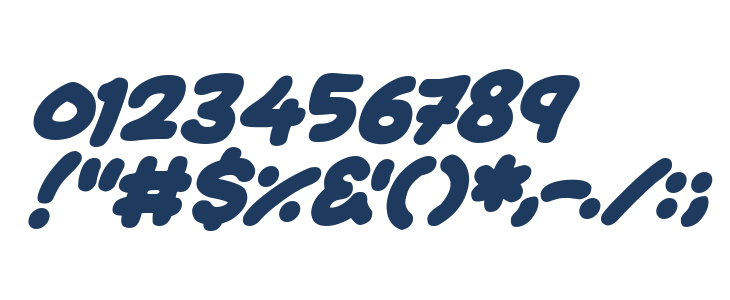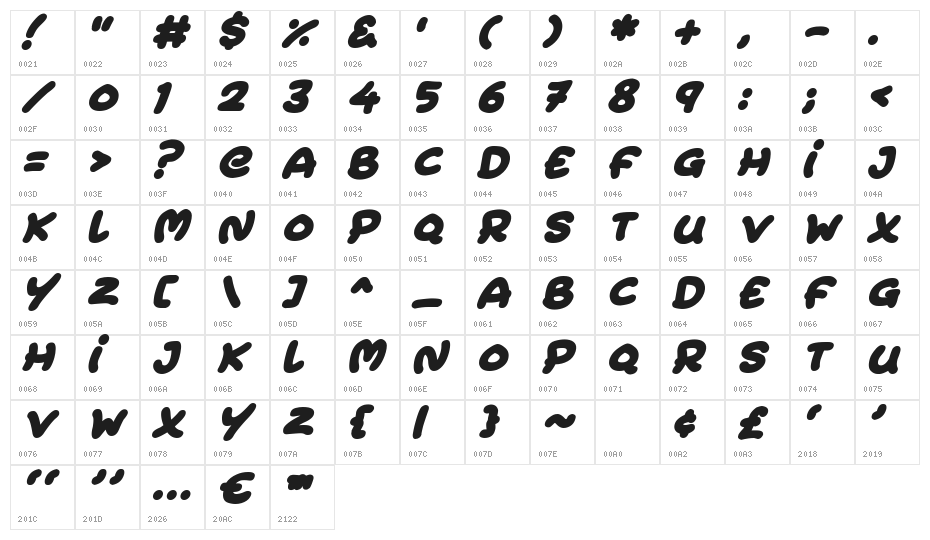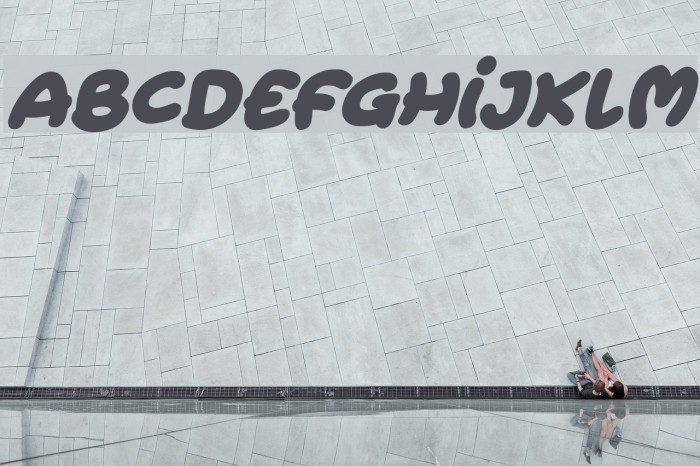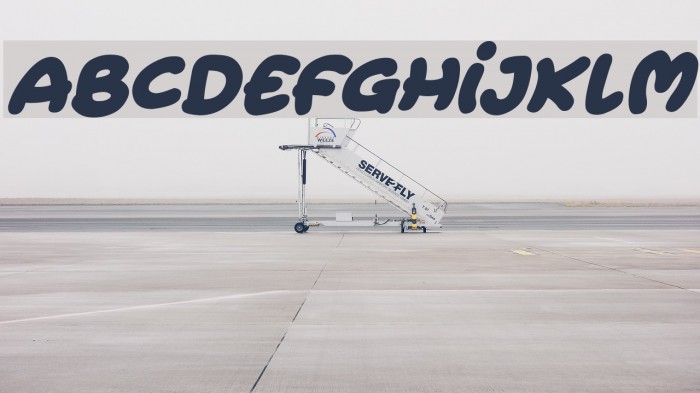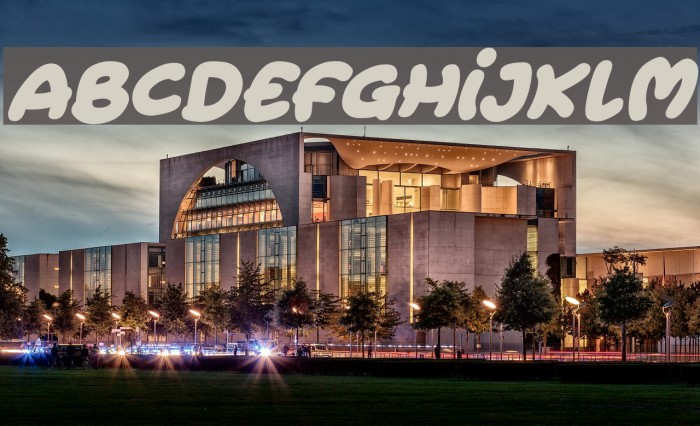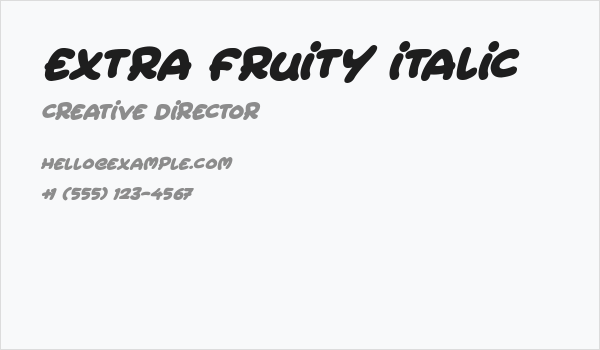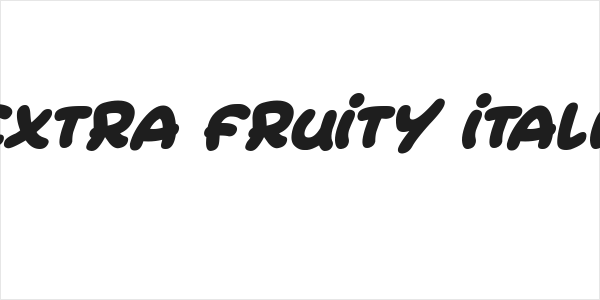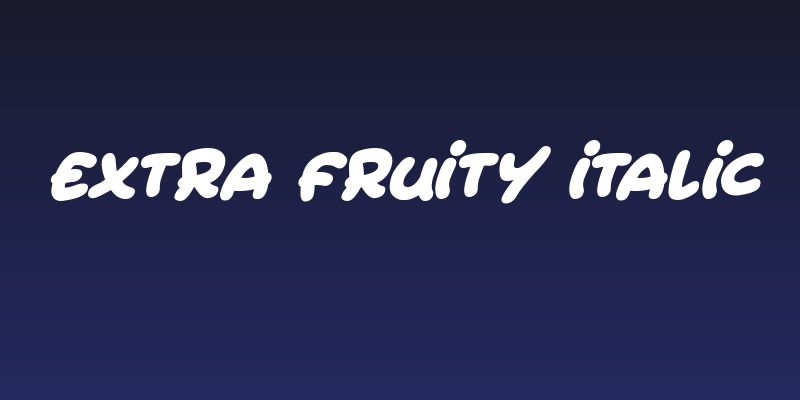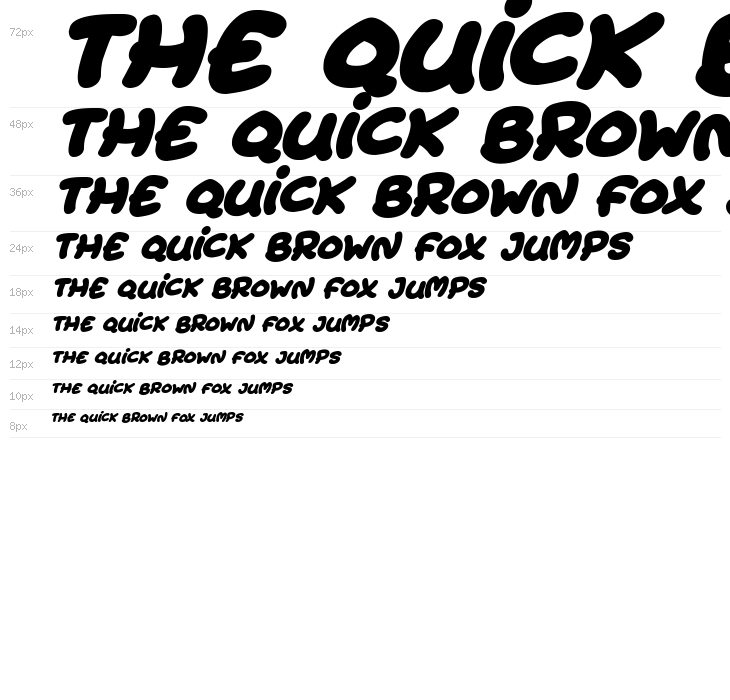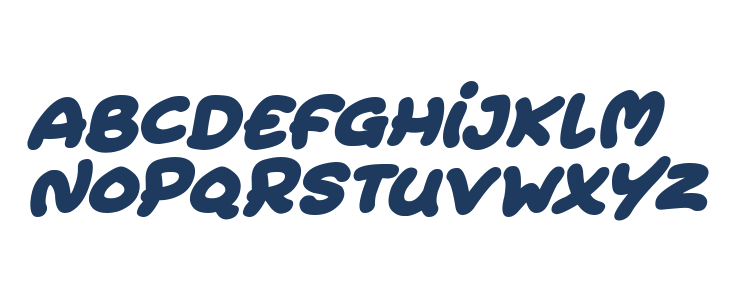
Extra Fruity Italic Font
Extra Fruity Italic Description
This playful and bold font features a unique, rounded style with a strong emphasis on curves and fluidity. The characters are thick and have a smooth, flowing appearance, giving them a lively and energetic feel. The font's design is consistent across uppercase and lowercase letters, as well as numbers and special characters, maintaining a cohesive look. Its bold strokes and rounded edges make it highly legible while adding a touch of whimsy. The overall style is modern and fun, making it suitable for projects that require a vibrant and eye-catching typeface.